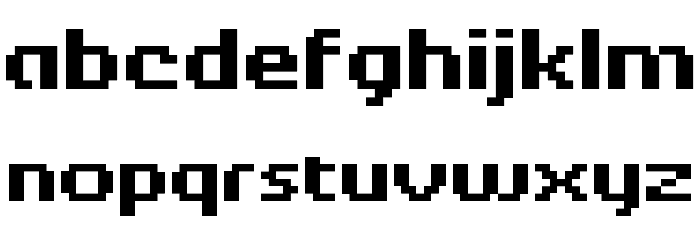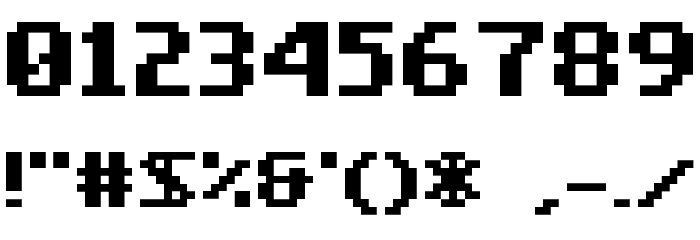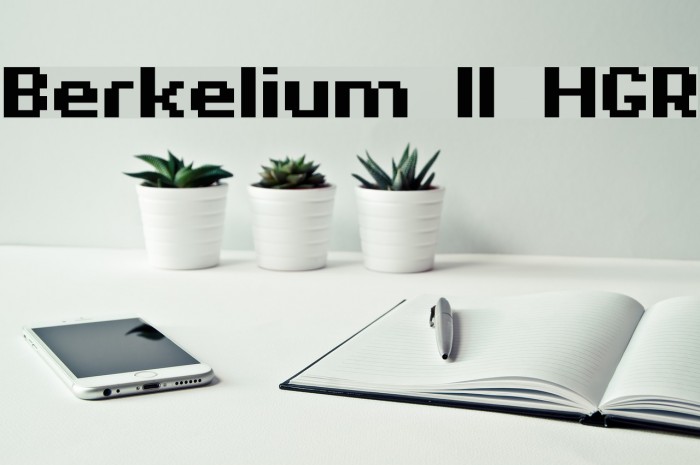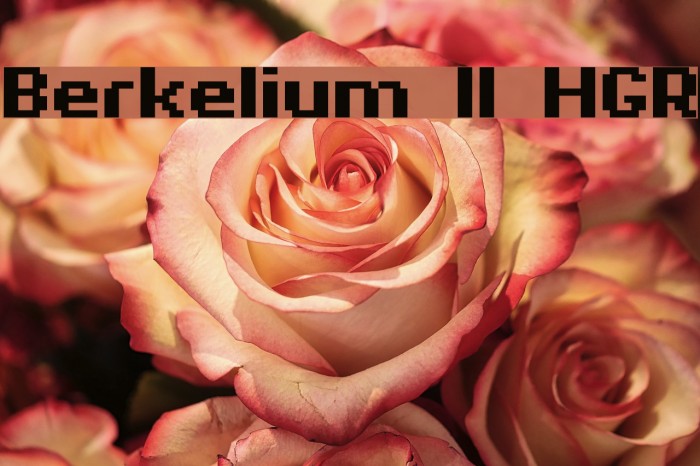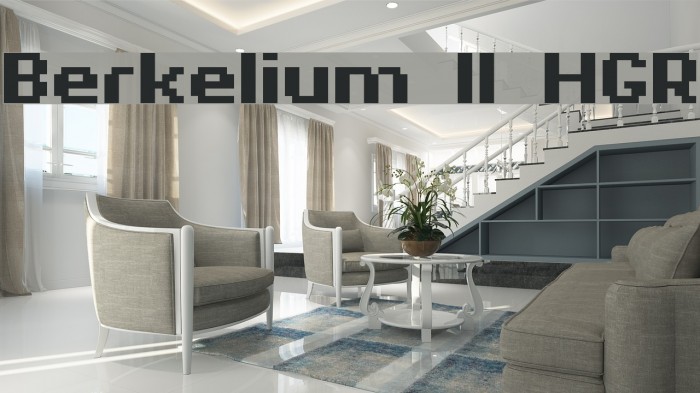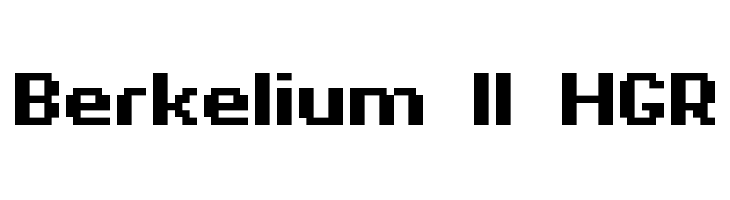
Berkelium II HGR Font
This font features a bold, pixelated style reminiscent of early digital displays and retro video games. Each character is composed of blocky, square shapes that give it a distinctly digital and geometric appearance. The uppercase and lowercase letters maintain a consistent height, contributing to a uniform look. Numbers and special characters follow the same pixelated design, ensuring cohesion across all glyphs. The font's simplicity and clarity make it highly legible, even at smaller sizes. Its nostalgic aesthetic is ideal for projects that aim to evoke a sense of classic gaming or digital nostalgia.
- Proposed Projects: Ideal for retro video game designs, digital-themed posters, and nostalgic branding projects.
- Overall Style: Retro, Digital
- Use Case: Headlines, Logos, Digital Art